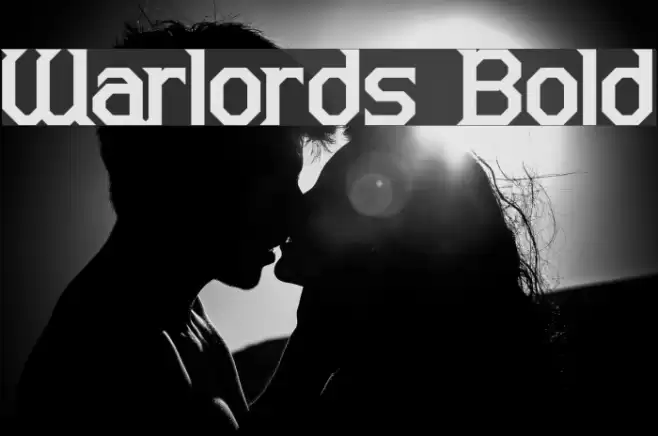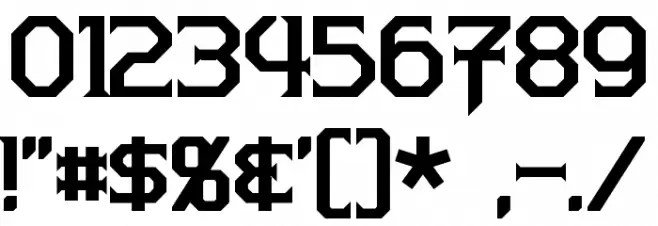
Warlords Bold Font
Warlords Bold Description
This font features a bold and angular design, characterized by sharp edges and a geometric structure. The uppercase and lowercase letters maintain a consistent style, with a strong emphasis on vertical and horizontal lines. The numerals and special characters follow the same angular theme, providing a cohesive look across all glyphs. The font's boldness and unique style make it stand out, offering a modern and edgy appearance. It is well-suited for projects that require a strong visual impact, such as branding, posters, and headlines.
A bold, angular font with a geometric and modern style from Uncategorized fonts.
- Proposed Projects: Ideal for branding, posters, headlines, and any project needing a strong visual impact.